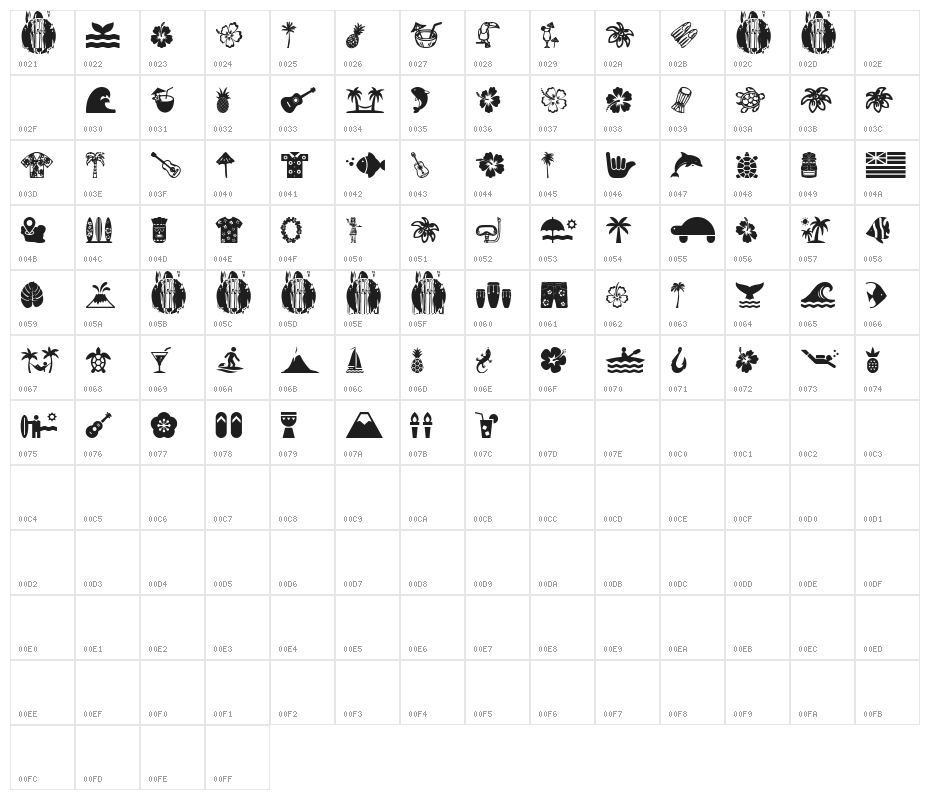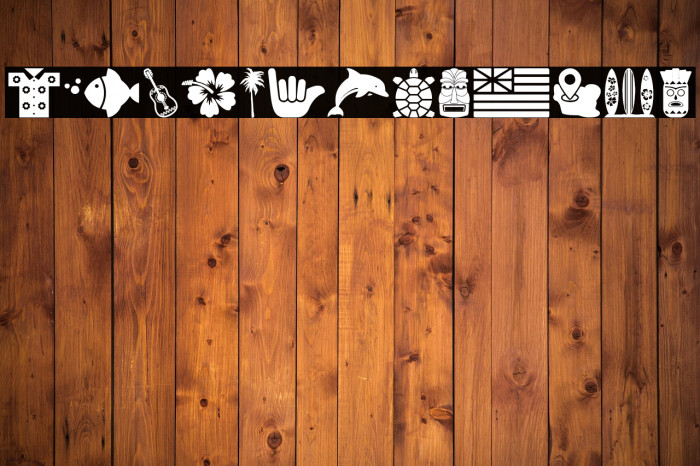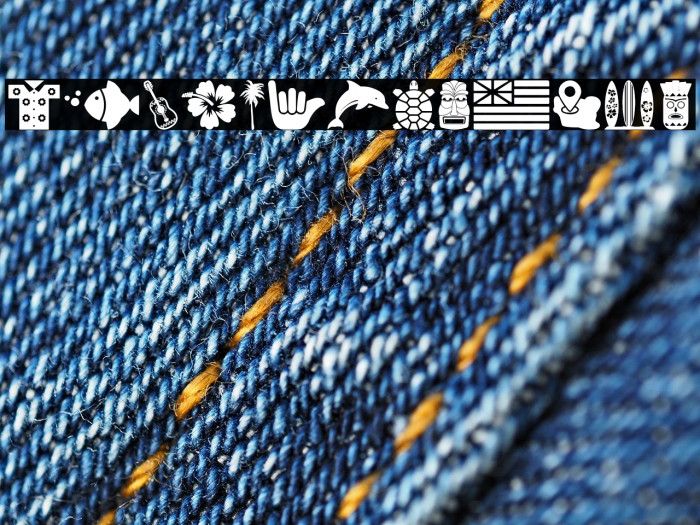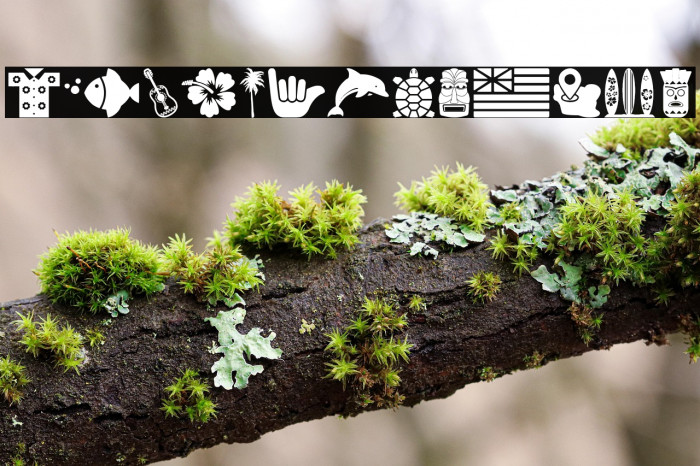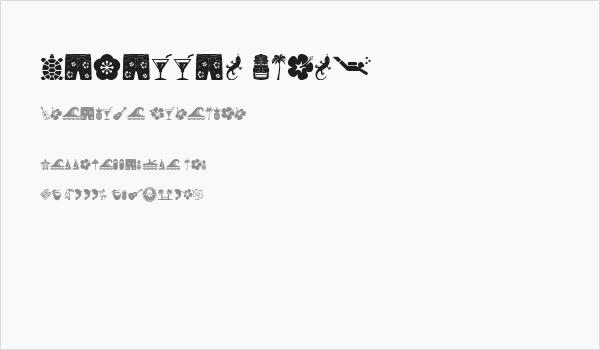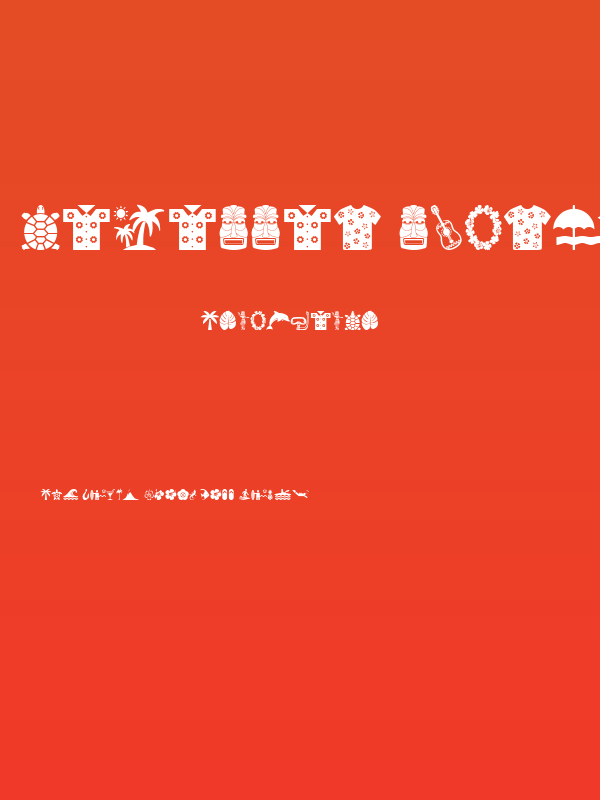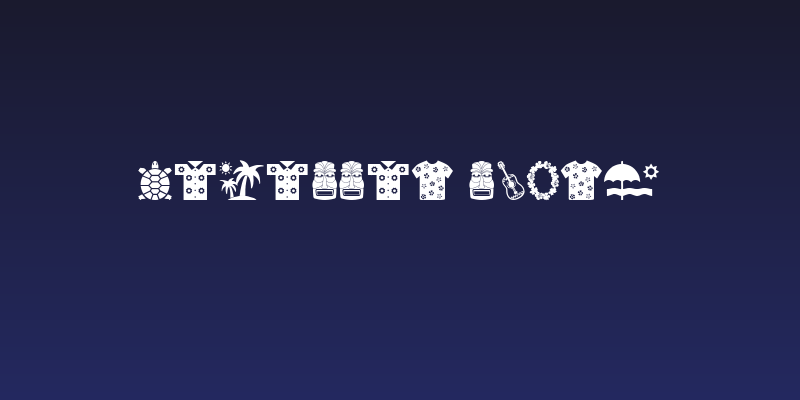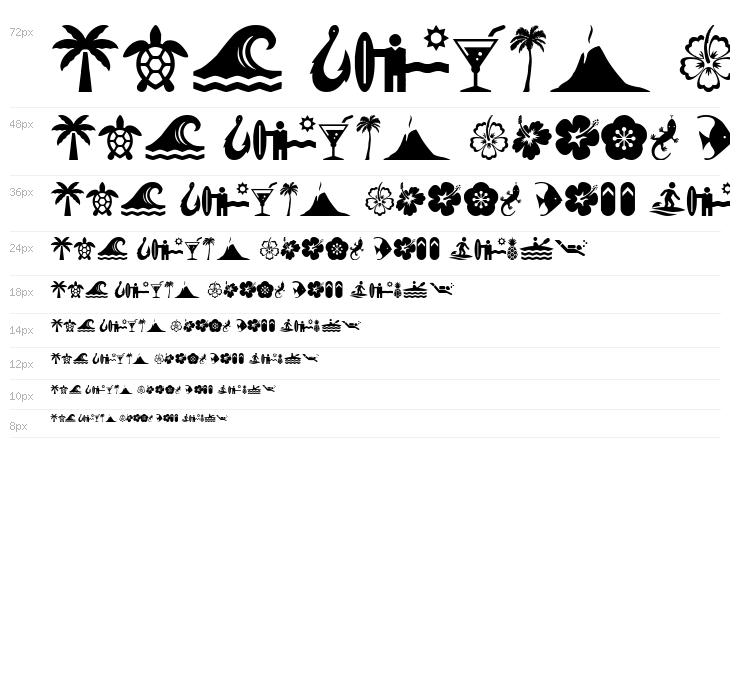
Hawaiian Icons Font
Hawaiian Icons Description
A collection of Hawaiian-themed pictograms featuring icons such as flowers, surfboards, palm trees, musical instruments, tropical drinks, and cultural symbols, all rendered in a bold, solid black silhouette style with playful and decorative details.
| Overall Style | Decorative, Playful, Thematic |
| Use Case | Logos, Icons, Decorative elements, Themed graphics |
| Proposed Projects | Travel brochures, event flyers, party invitations, themed merchandise, educational materials, digital stickers. |